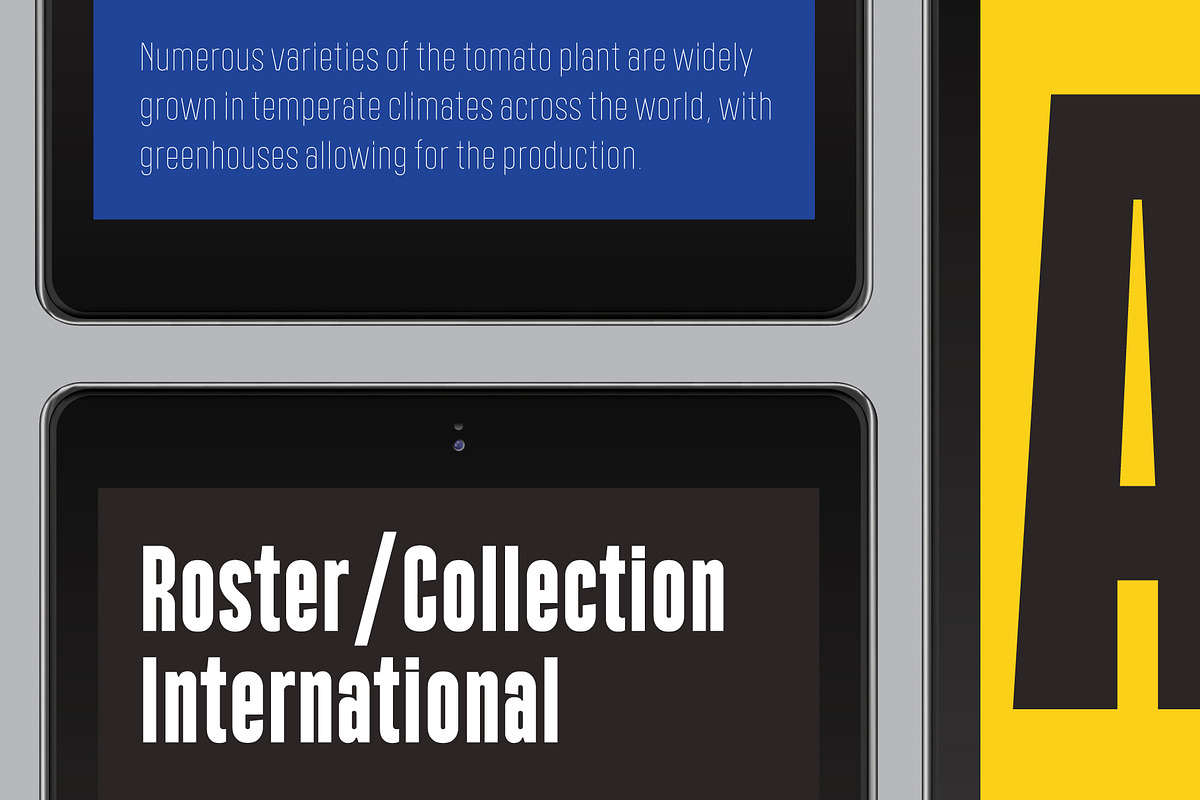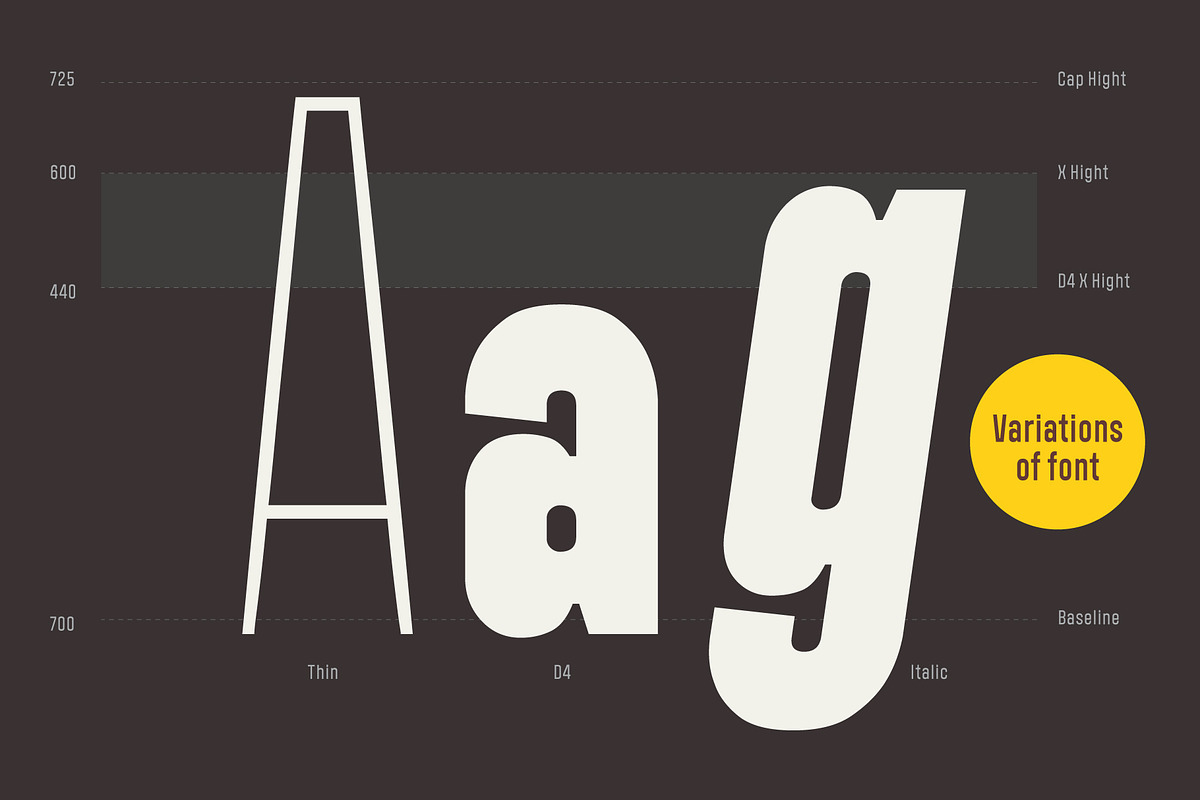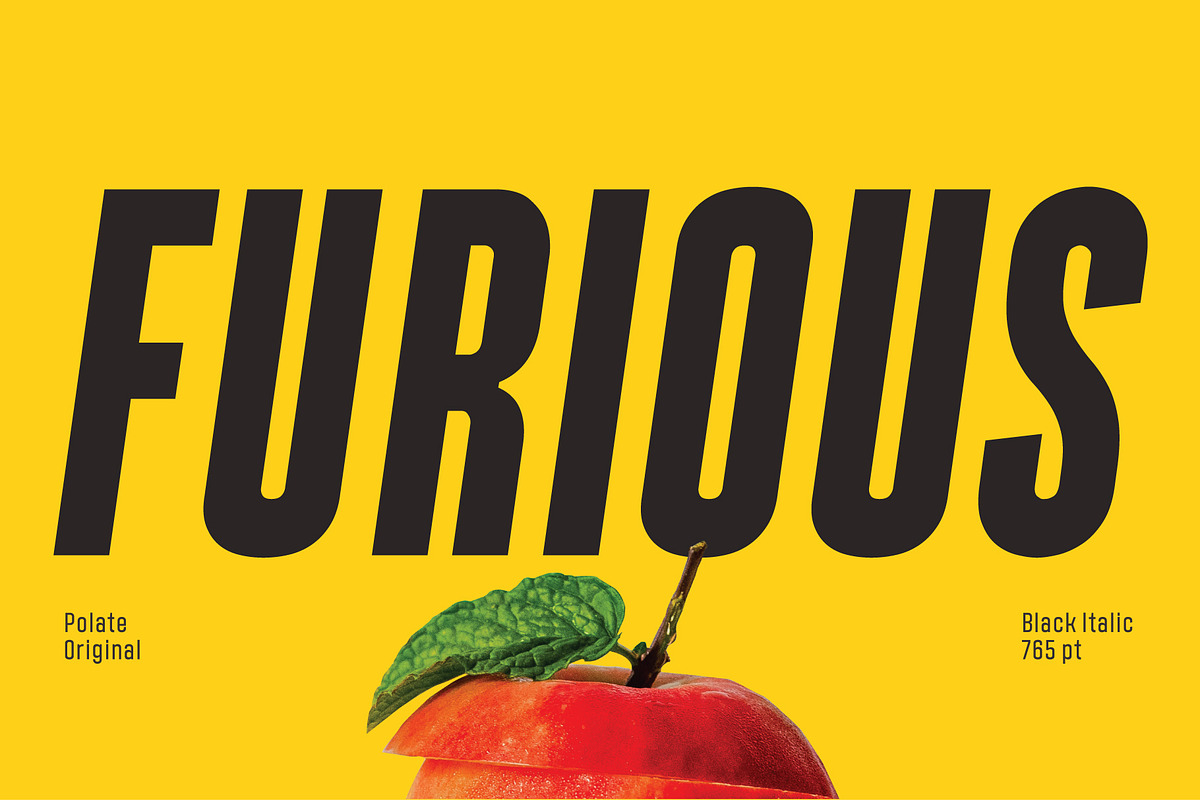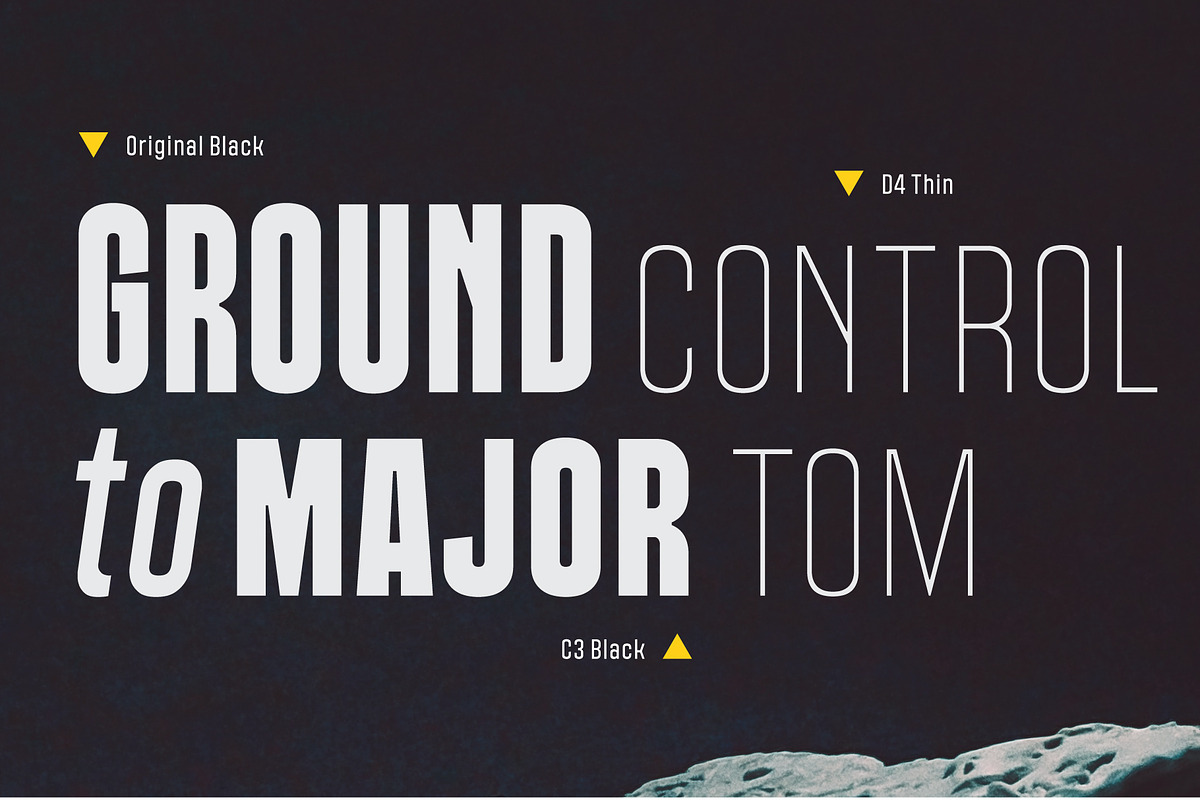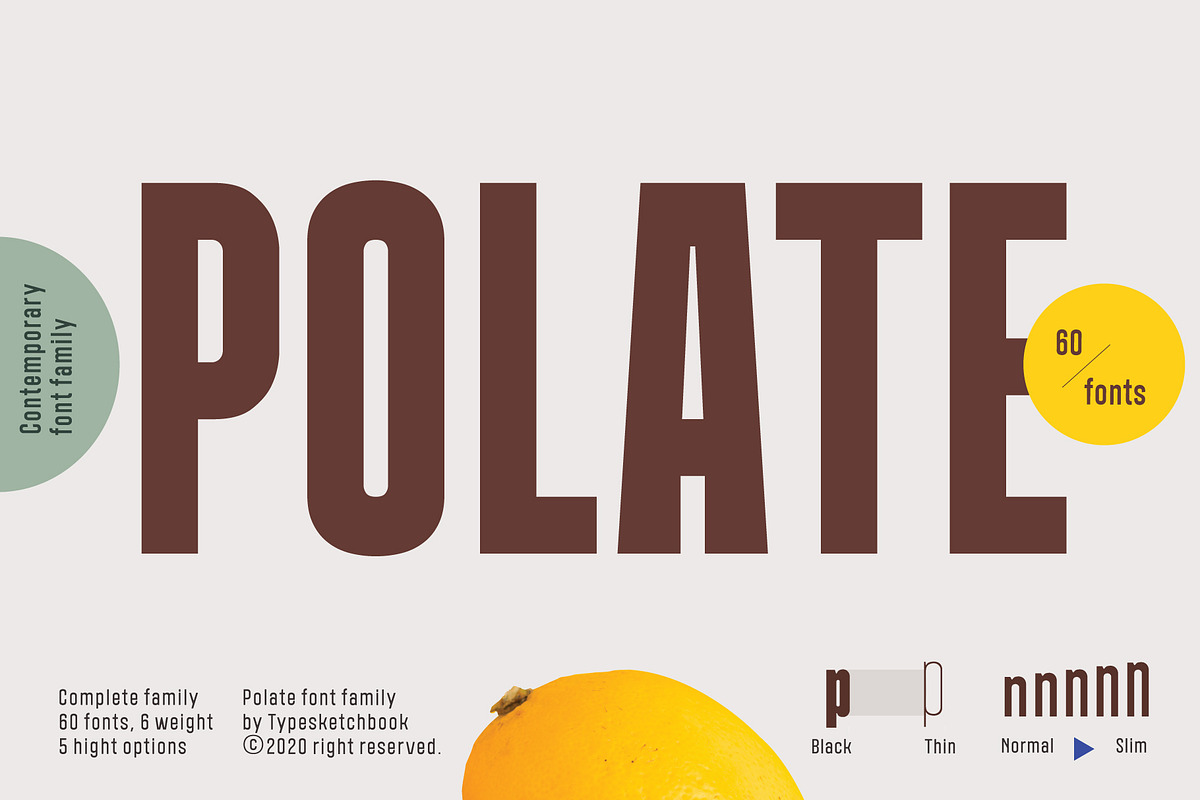
Polate
Polate font is an extra large super family of 60 fonts! Polate has such a big abundance of contrast, styles, weights, X-Hight. Typesketchbook consists of a very usable, clean and modern sans typeface . The complete Polate type family includes 6 weights with italic and 5 X-Hights versions for each of them all in all 60 fonts for a multifunctional usage, especially for cooperative work, such as website, magazine, editorial, publishing , as well as packaging.